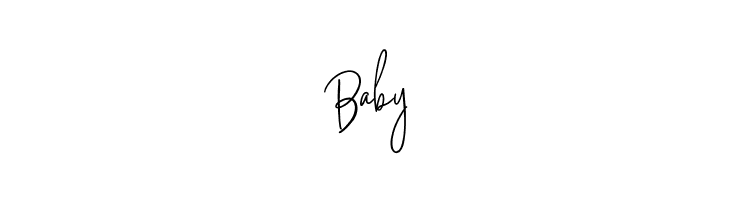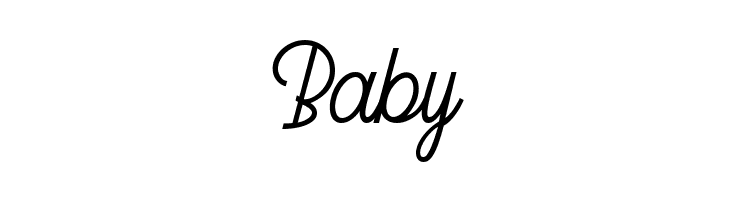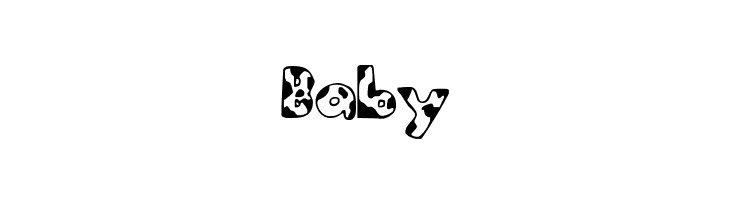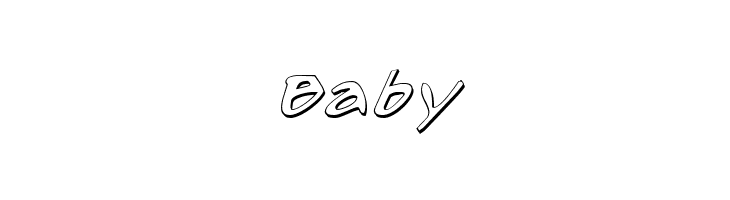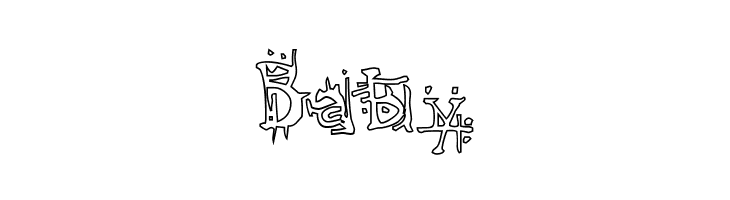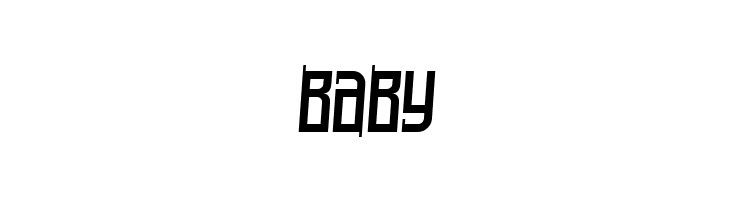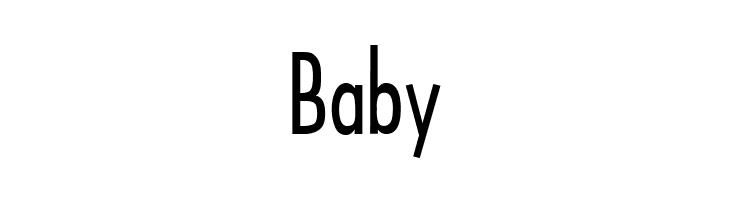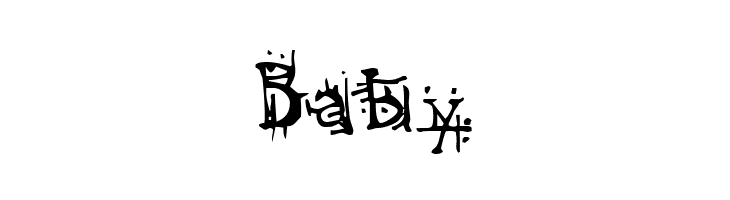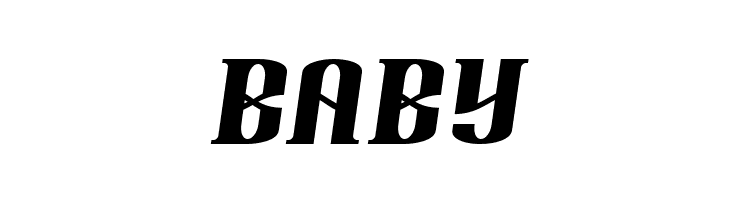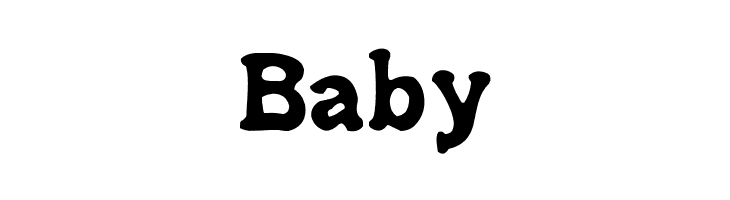
A bold, 3D font with a playful, retro comic book style.
A bold, blackletter font with intricate, angular strokes and a historical feel.
A modern, geometric font with tall, narrow uppercase and rounded lowercase letters.
A modern, geometric font with a unique cut-off style and consistent stroke width.
A lively handwritten font with fluid, dynamic strokes and a playful style.
A bold, cursive font with a lively and dynamic style.
A bold, playful font with a hand-drawn, artistic style.
A playful, hand-drawn font with dynamic, irregular strokes.
A bold, playful font with a handwritten aesthetic and dynamic character shapes.
A bold, italicized font with a dynamic, handwritten style.
A playful, hand-drawn font with varied stroke thickness and a whimsical style.
A dynamic, italicized, and condensed font with a modern, energetic style.
A playful, hand-drawn font with an artistic and informal style.
A dynamic, italicized font with expanded letterforms and a modern flair.
A dynamic, italicized font with a handwritten style and smooth, continuous strokes.
A bold, left-slanted font with a dynamic, handcrafted style.
A playful, shadowed font with rounded edges and a whimsical style.
A dynamic italic font with a shadow effect, offering a modern and playful appearance.
A bold, decorative font with unique zigzag patterns in uppercase letters.
A bold, angular font with a modern, geometric style.
A stylish and elegant script font with flowing, cursive characters.
A bold, expressive brush script font with a hand-painted appearance.
A modern, handwritten font with fluid, cursive strokes and elegant connections.
A tall, narrow, and angular font with a modern, geometric style.
A bold, geometric font with a modern, tech-inspired design.
A modern, geometric font with an oblique slant and sharp angles.
A collection of abstract and geometric symbols with a mystical and historical flair.
A dynamic handwritten font with fluid, sweeping strokes and a casual elegance.
A bold, modern typeface with strong, thick strokes for impactful design.